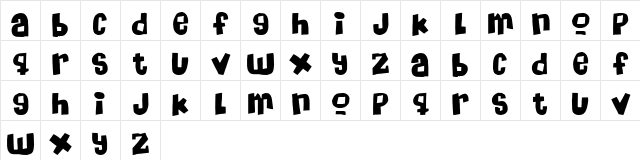
Doodle Massive Headache Regular Font Preview
Doodle Massive Headache Regular
Design Context for Doodle Massive Headache Typeface
Doodle Massive Headache is a composed and adaptable typeface that performs quietly and consistently across a wide range of design contexts.
Pro Tip: Use Doodle Massive Headache in both headline and body roles to test its range before committing to a single application.